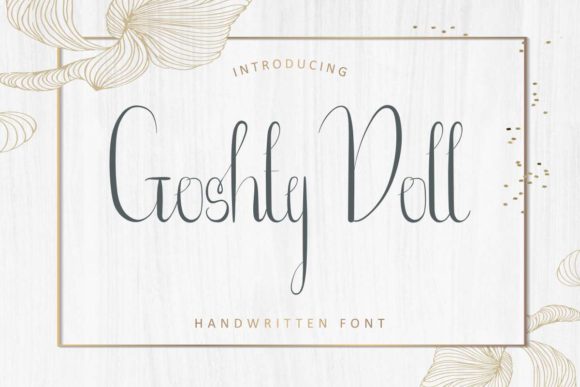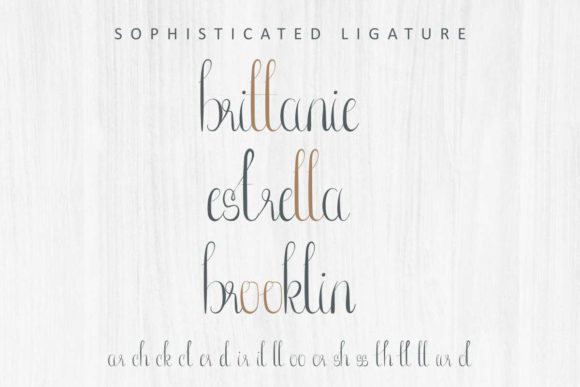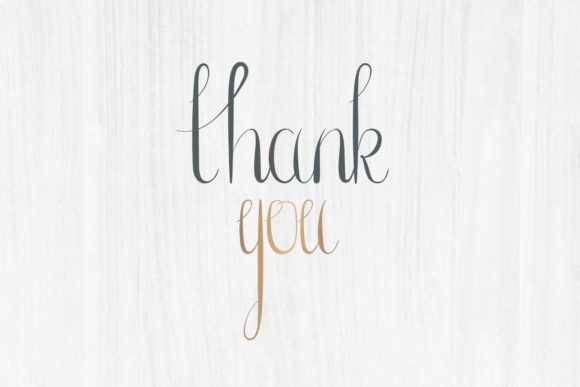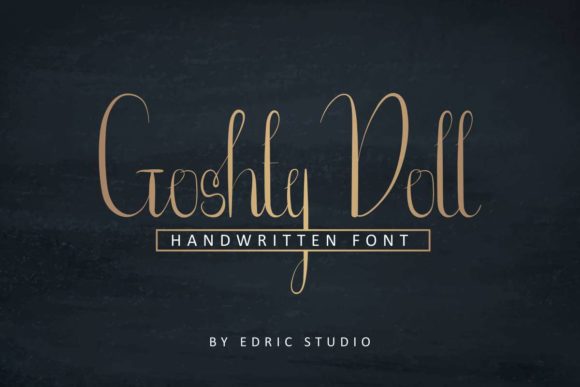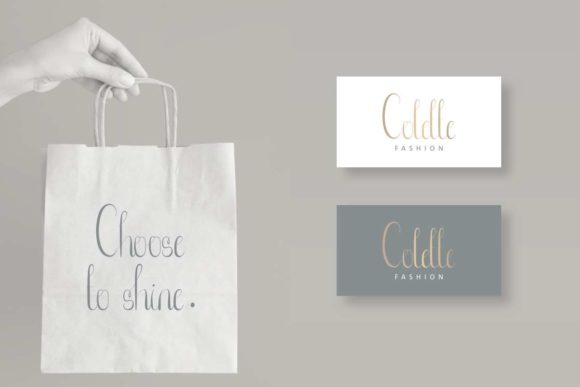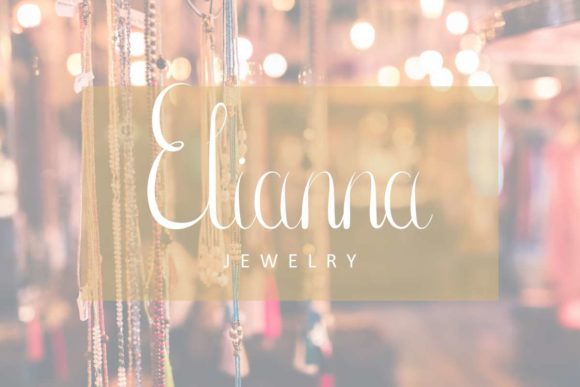
Goshty Doll Font
About Goshty Doll Font
Goshty Doll features an incredibly classic style, while still keeping a friendly feel. This handwritten font is perfect for making original and outstanding designs. It also features a wealth of special features including alternate and international glyphs.